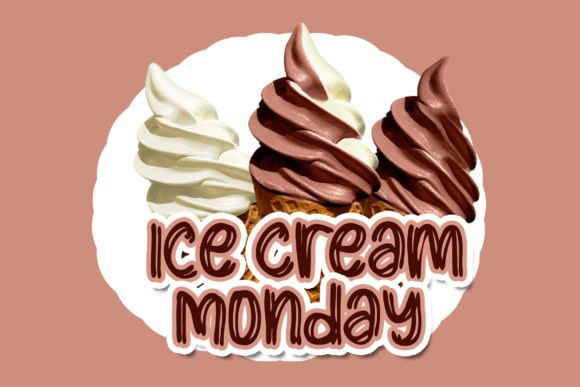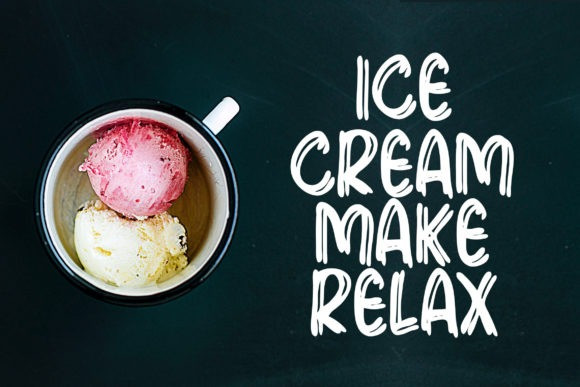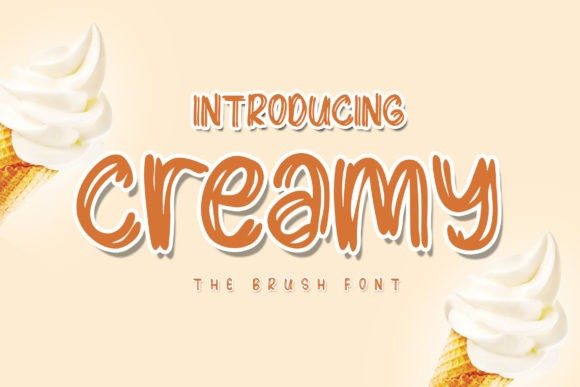
Creamy Font
Creamy Font is a cute, brushed and adaptable handwritten font. Whatever the topic, this font will be a wonderful asset to your font library, as it has the potential to enhance any creation.